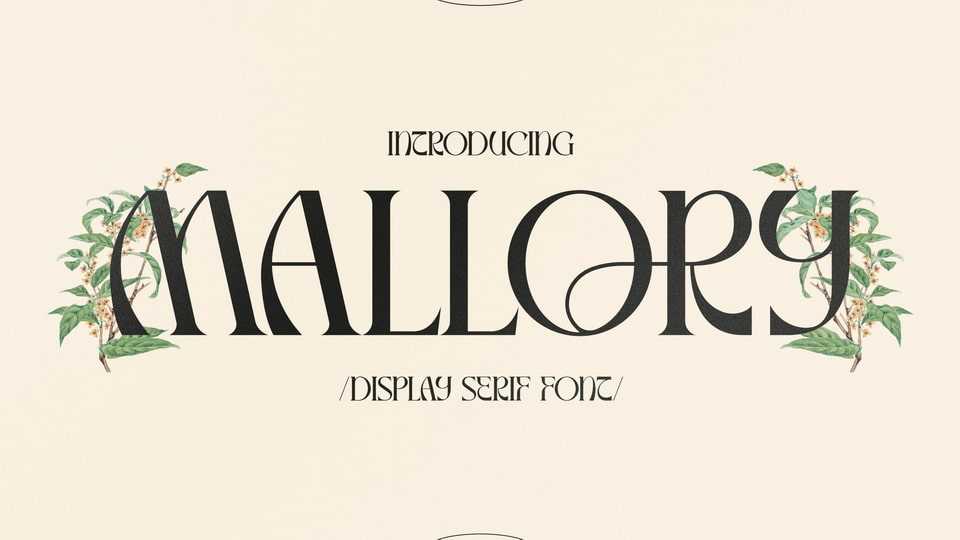
Download Mallory font, a contemporary display typeface that has own unique style and modern look. Mallory font is perfect for an elegant and luxury logo, book or movie title design, fashion brand, magazine, clothes, lettering, quotes, and so much more.